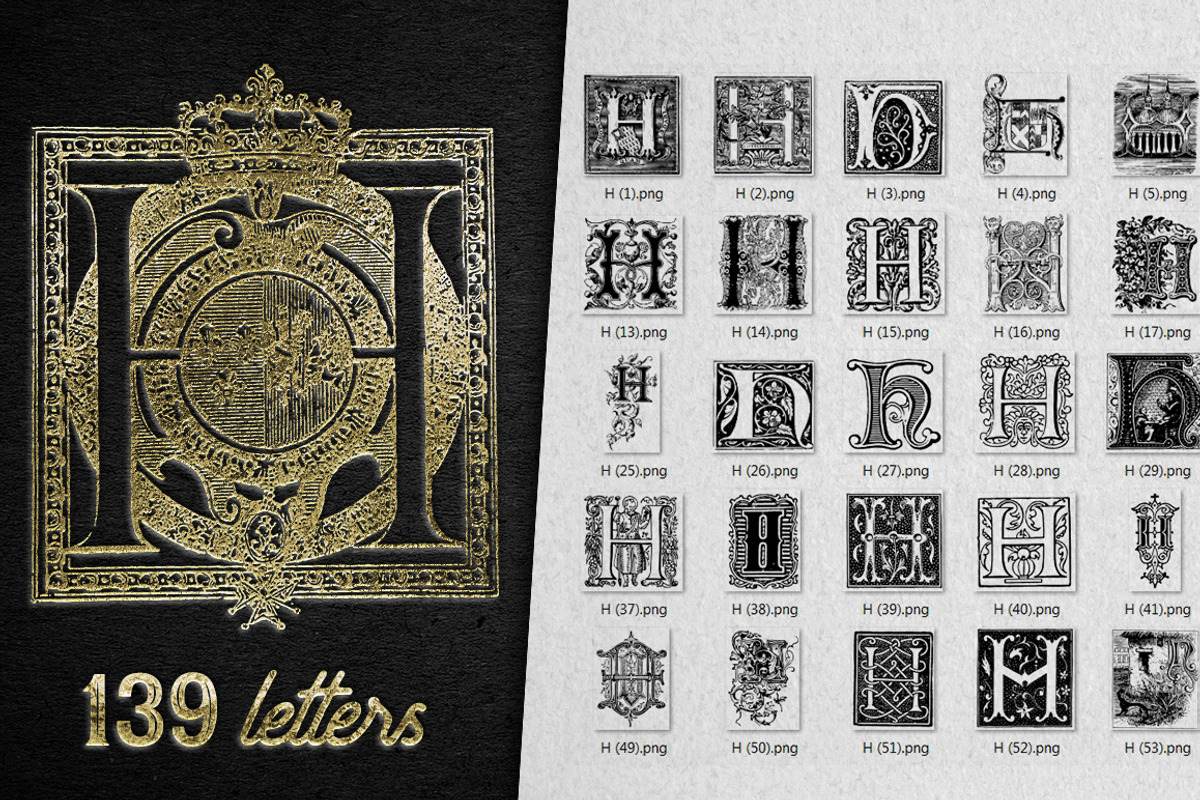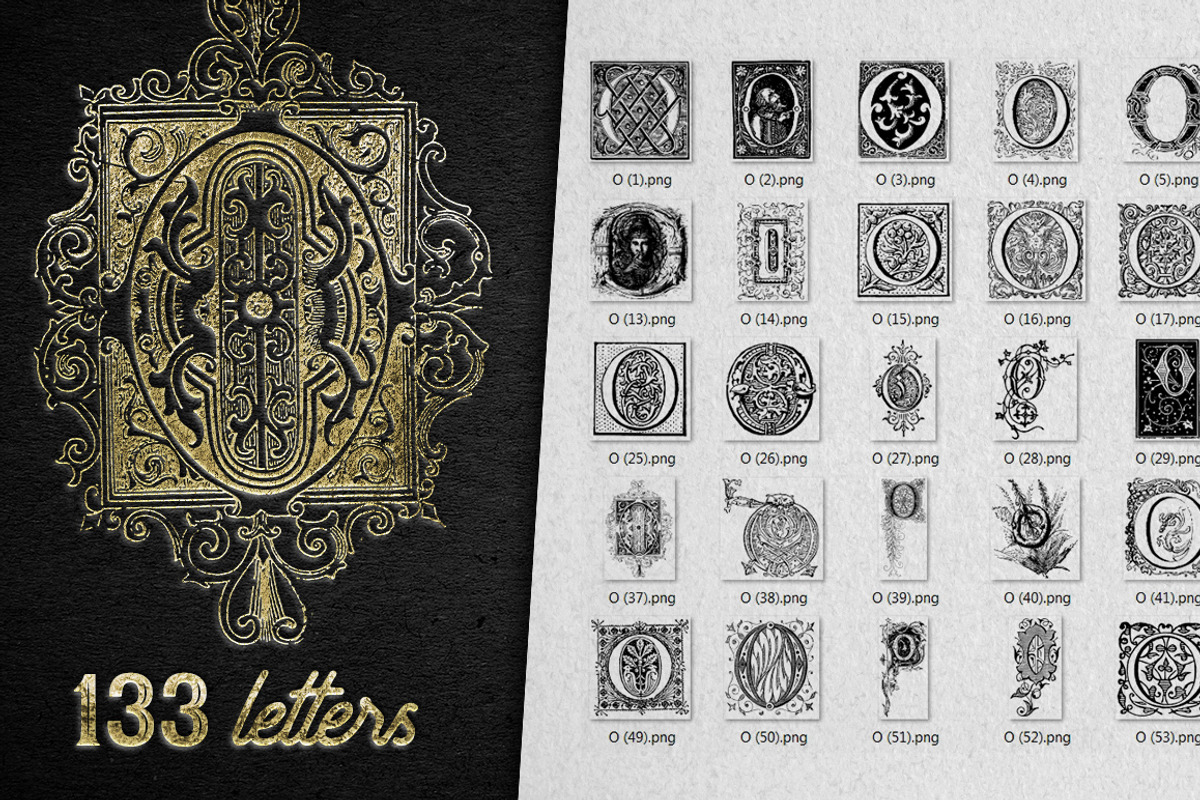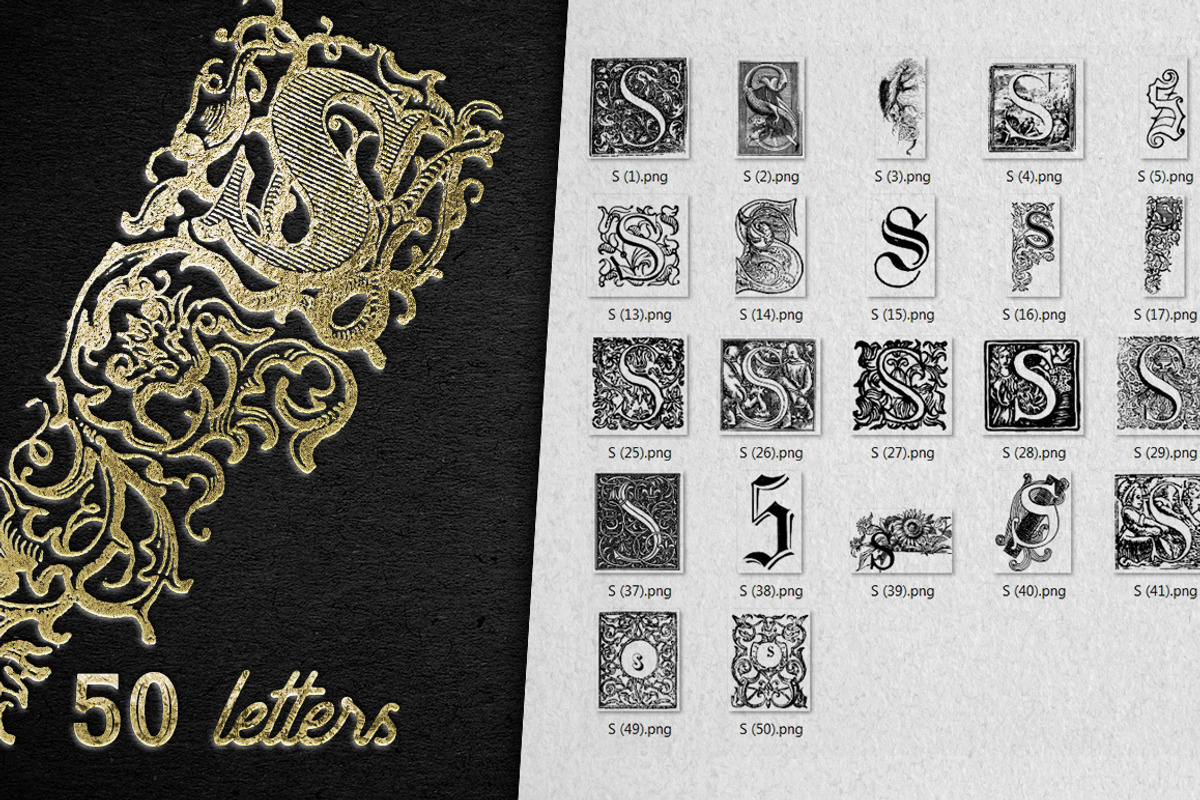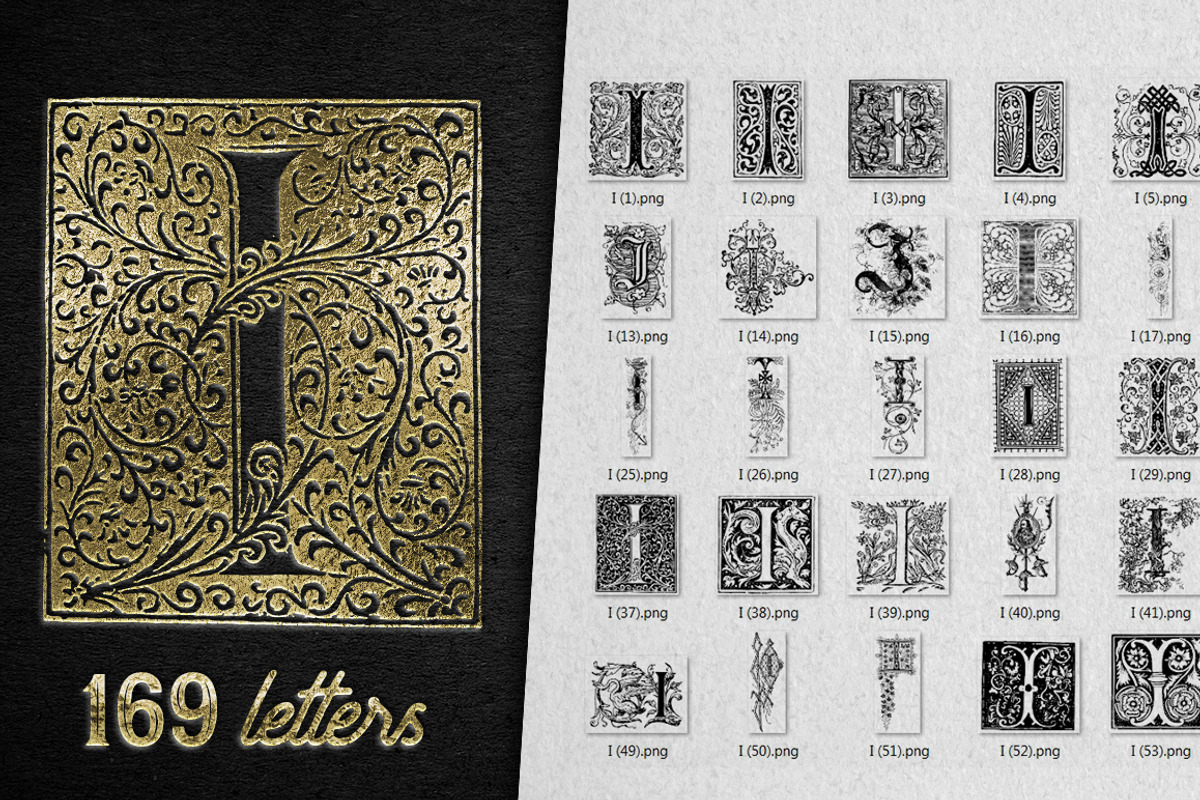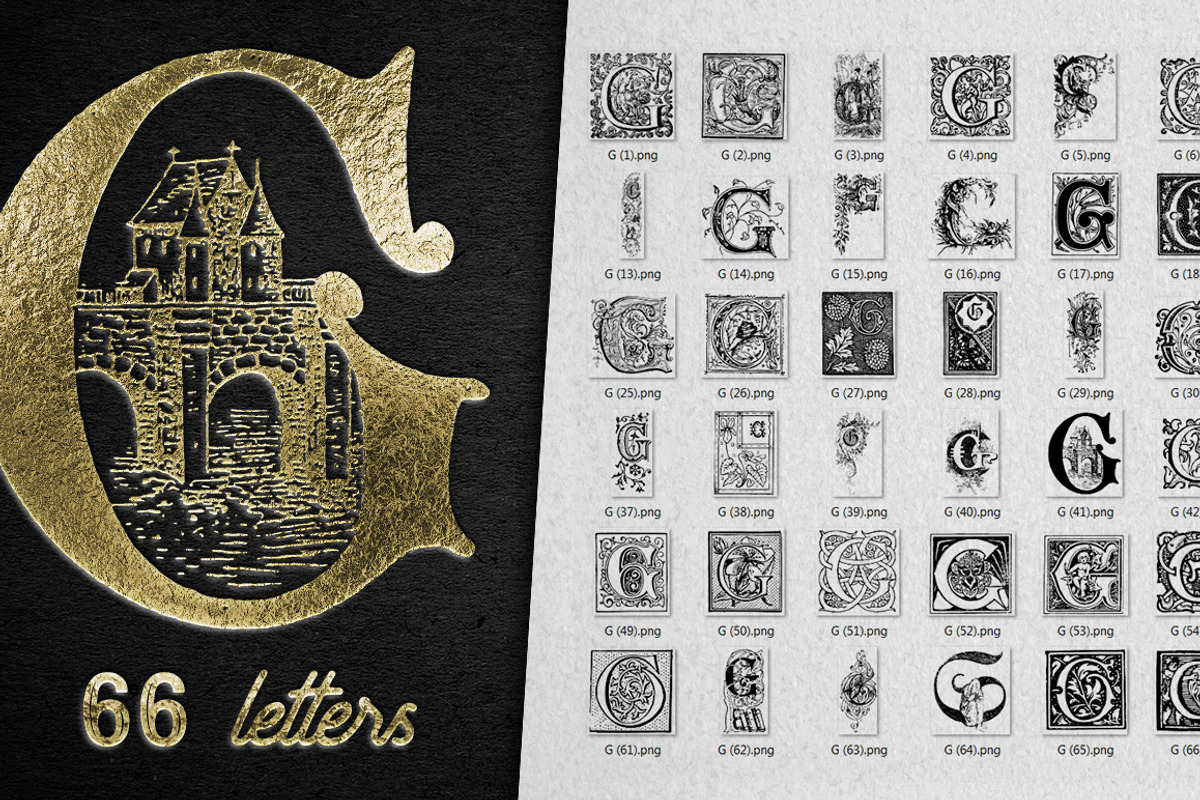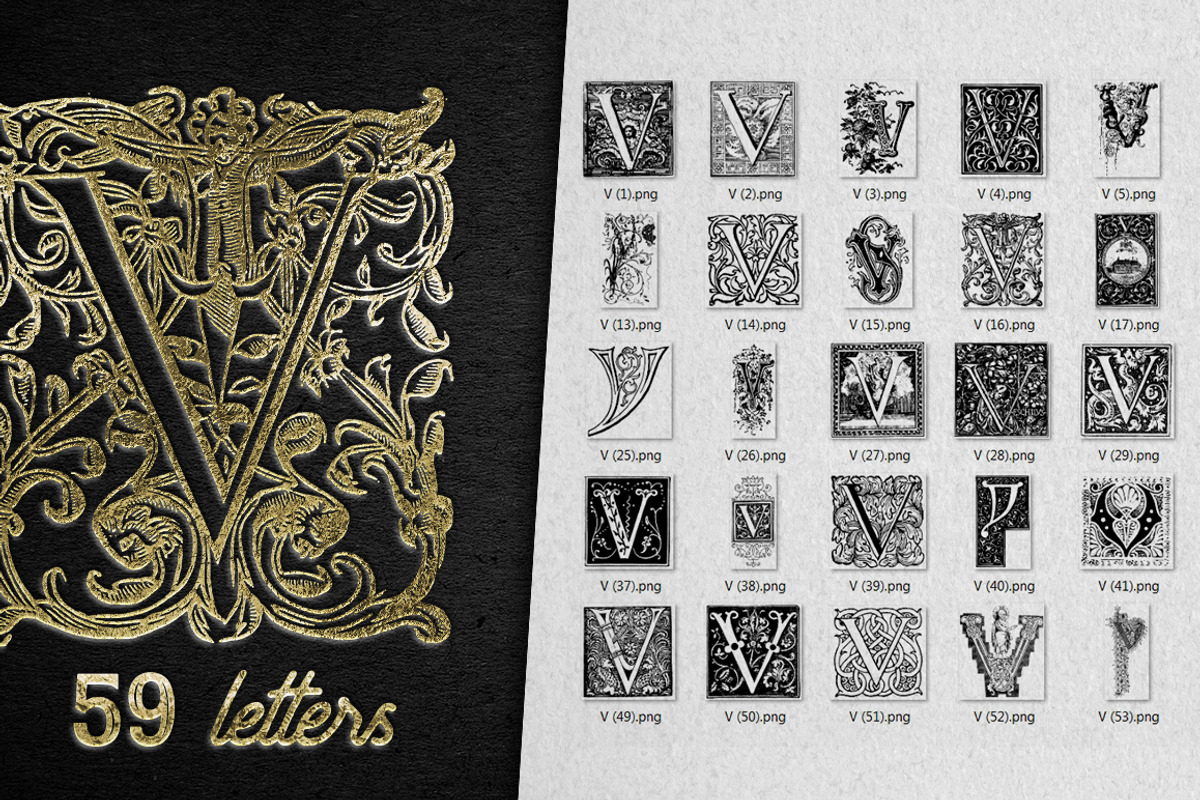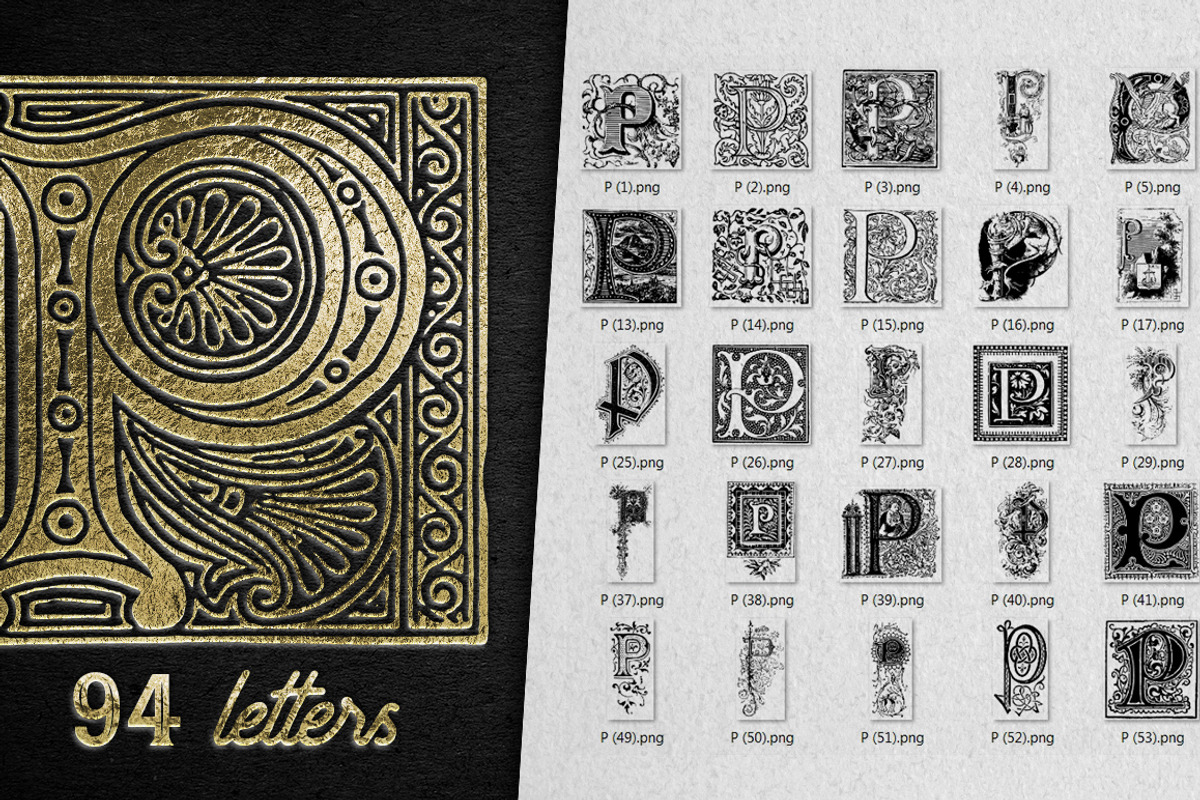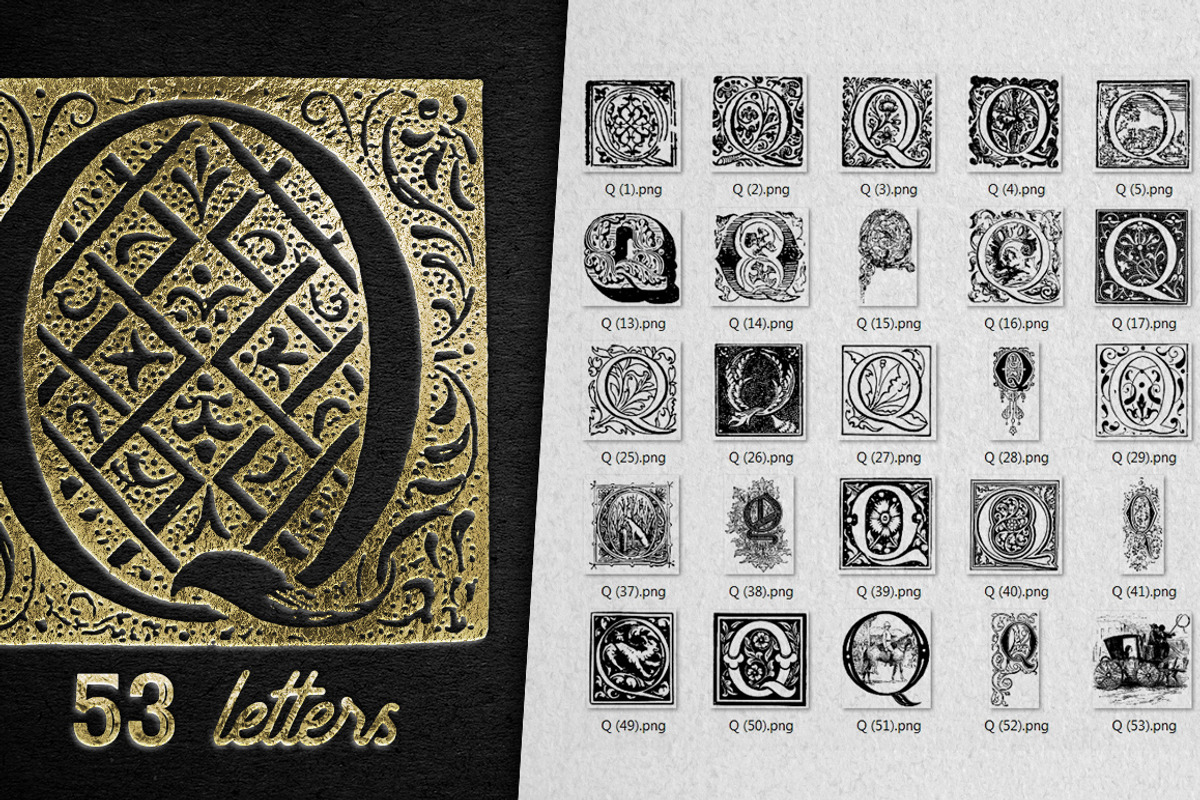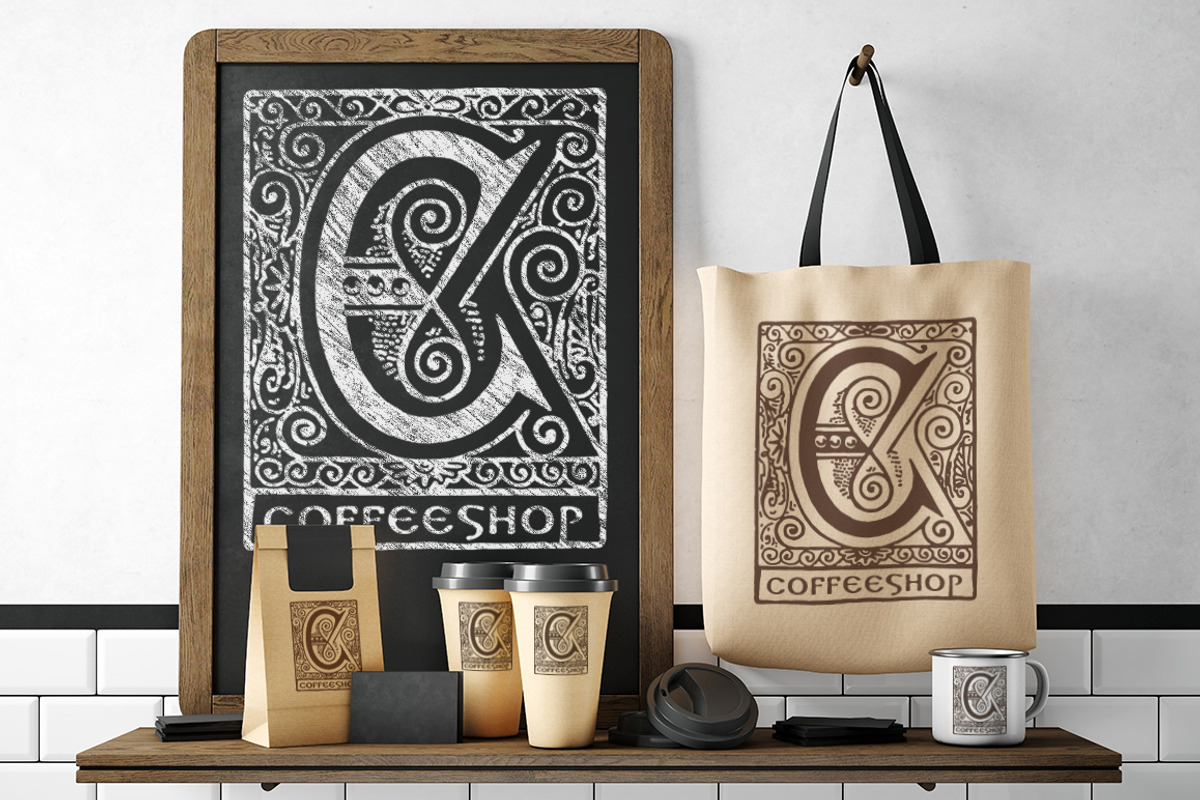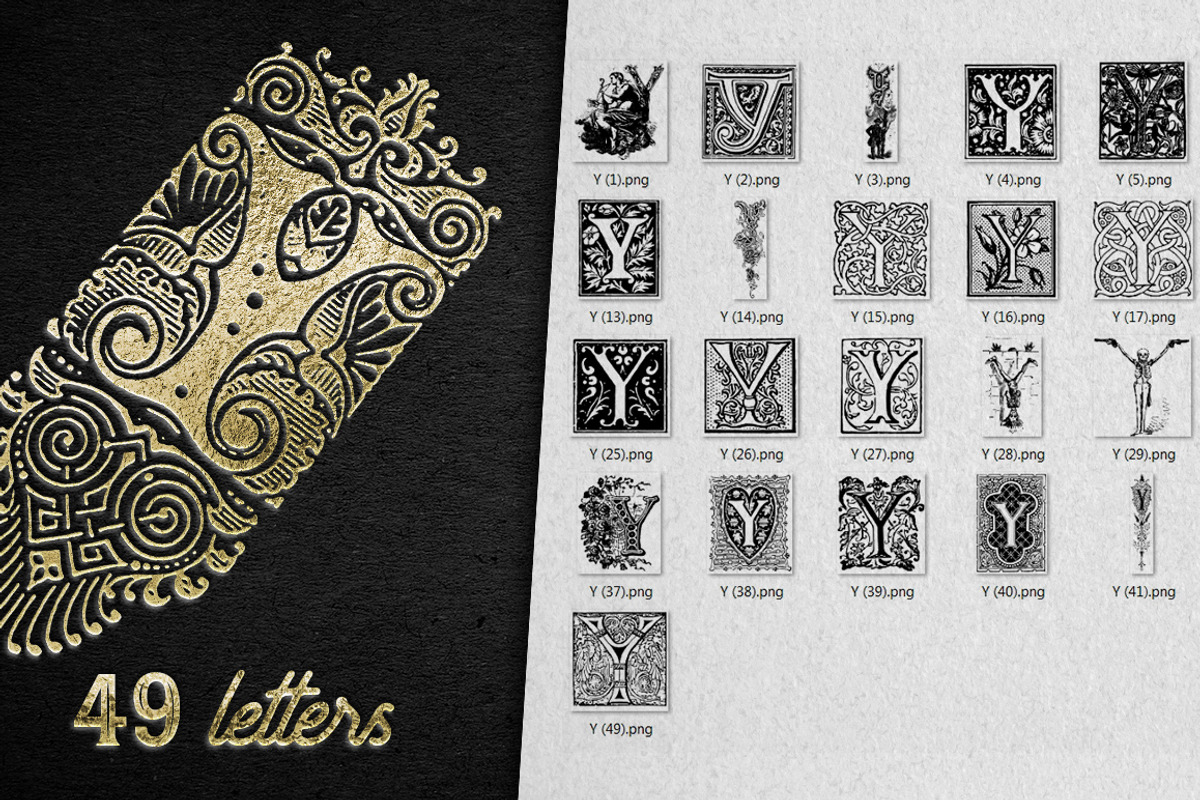
28 IN 1 VINTAGE LETTERS COLLECTION
Finally, I want to introduce to you this incredible product which I have devoted months of hard work and as a result before you unique collection of rare vintage letters in different styles: Celtic, Gothic, gravure, and many others...
Using them, you can create a variety of stylish designs, remarkable letters, any texts you can start with expressive letter, create monogram and initials, decorate wedding postcard with initials of honeymooners, design family coat of arms, create a logo, create a poster for the interior and a lot of incredible things what my product will inspire you.